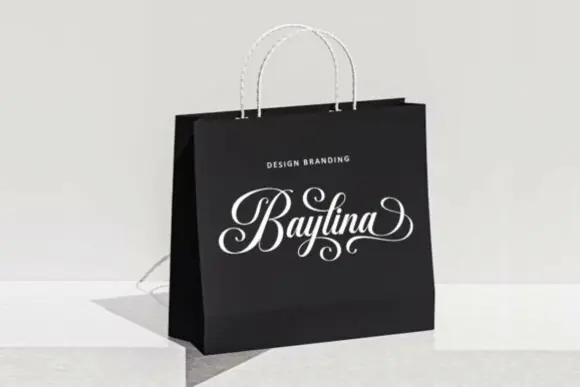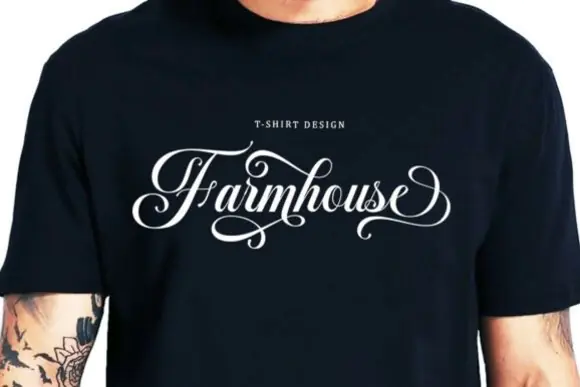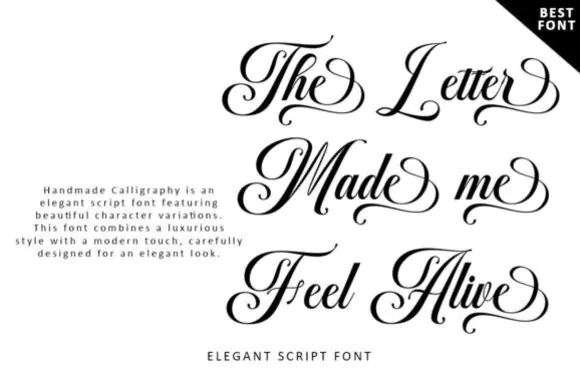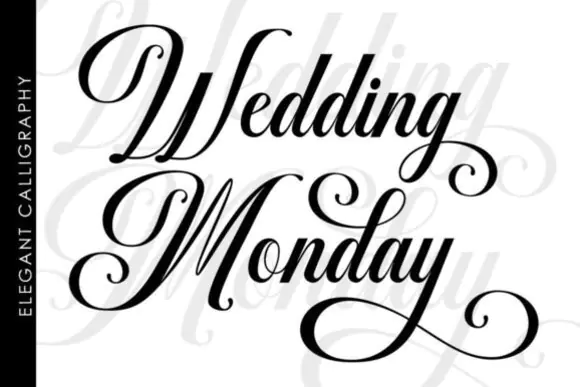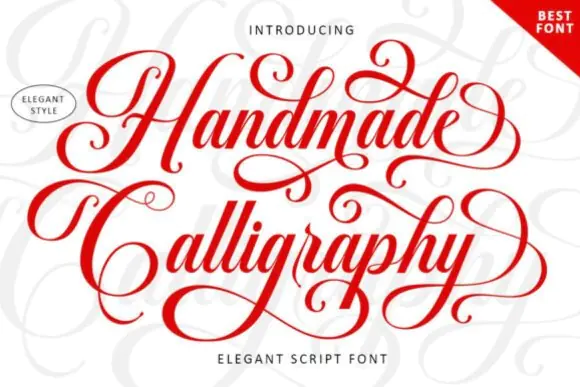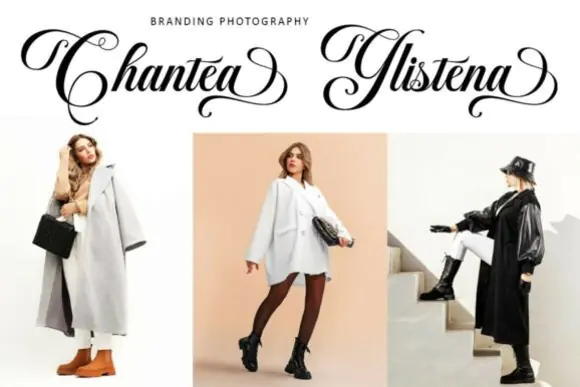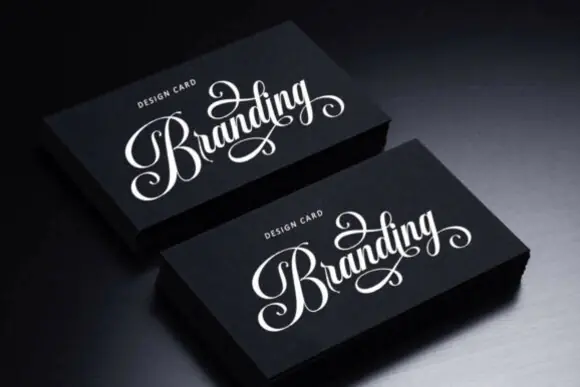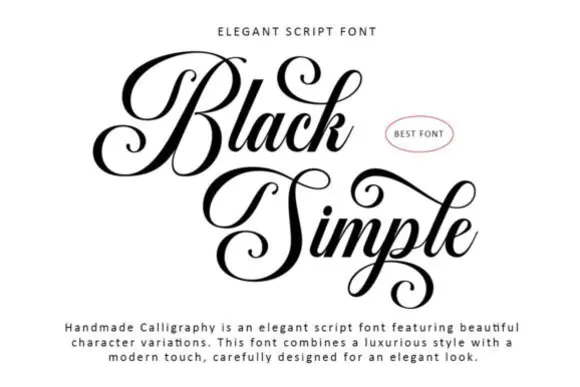
Handmade Calligraphy Script Font – Elegant Luxury Typeface with Beautiful Character Variations for Invitations, Labels, Logos, Restaurant Menus, Fashion, Makeup, Stationery, Books, Packaging & Adverti
Create elegant, luxurious, and professionally polished designs with Handmade Calligraphy Font, a beautiful script typeface designed with graceful character variations and a refined modern touch. Its clean feminine style, smooth letter connections, and easy-to-read calligraphy flow make it perfect for creative projects that need a classic yet stylish appearance.
This font works beautifully for formal invitations, wedding cards, greeting cards, product labels, restaurant menus, logos, fashion branding, makeup packaging, stationery, novels, magazines, books, advertising materials, social media graphics, boutique designs, printable products, and luxury packaging. Its sophisticated script style adds charm, beauty, and a premium handwritten feel to both digital and print designs.
Whether you are designing wedding stationery, elegant brand identities, beauty product labels, restaurant menu typography, book covers, magazine titles, or stylish advertising graphics, Handmade Calligraphy Font helps your text look graceful, memorable, and high-end. It is especially useful for designers, crafters, small business owners, branding specialists, wedding creators, beauty brands, and digital product sellers looking for a clean and luxurious calligraphy font.
Invitations, wedding cards, greeting cards, product labels, restaurant menus, logos, fashion branding, makeup designs, stationery, novels, magazines, books, packaging, advertising, boutique designs, social media graphics, printable wall art, and luxury creative projects.
Key Features
• Elegant calligraphy script font style
• Beautiful character variations
• Luxurious look with a modern touch
• Clean, feminine, and easy to read
• Smooth and stylish letter connections
• Great for formal and premium designs
• Perfect for digital, print, branding, and advertising projects